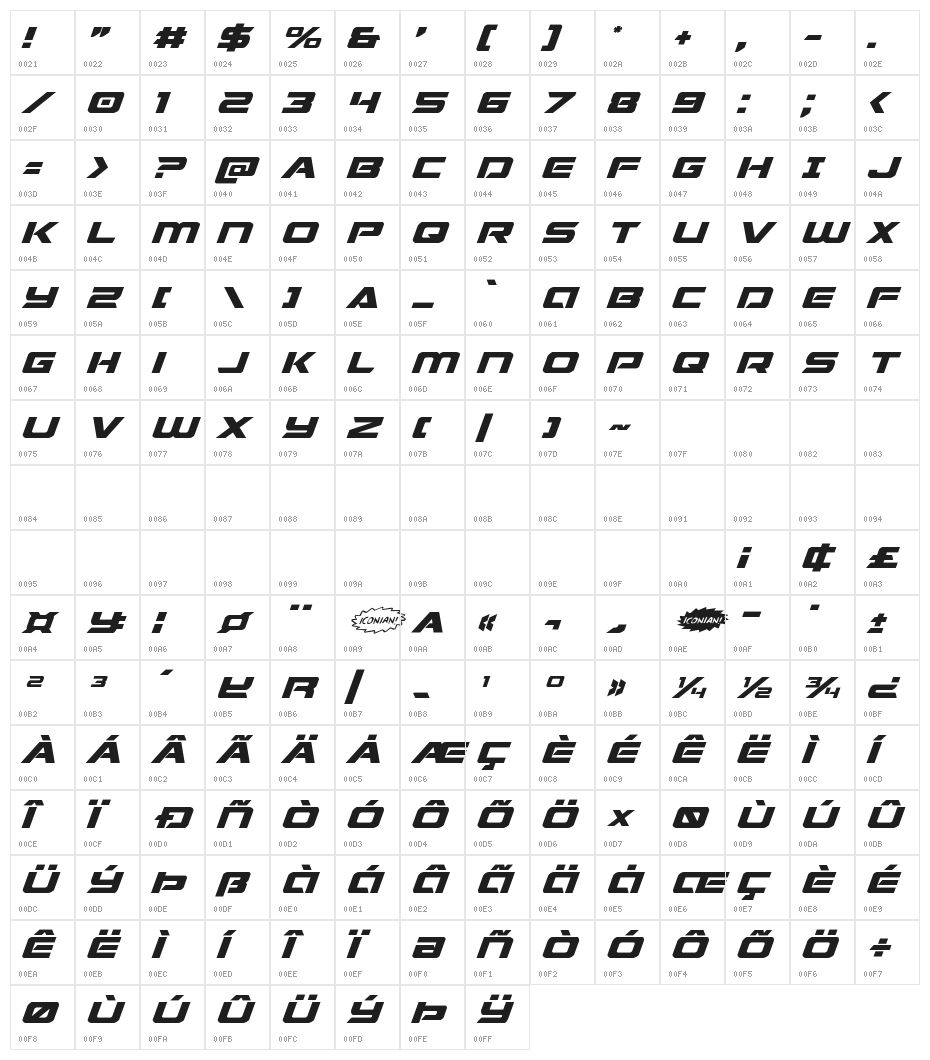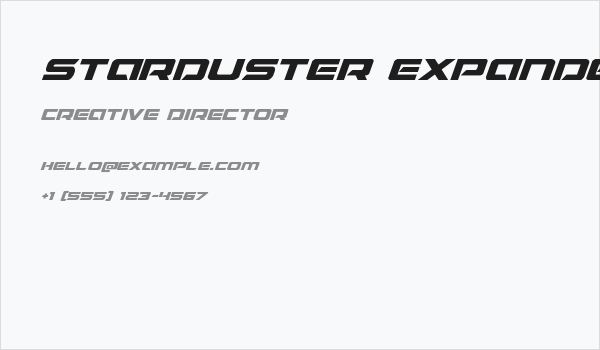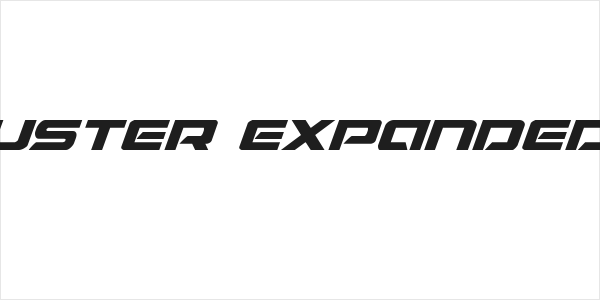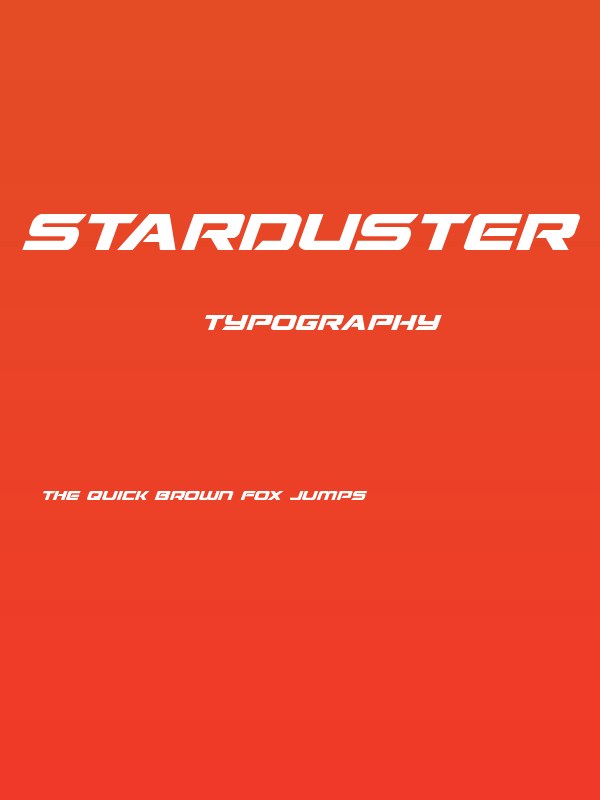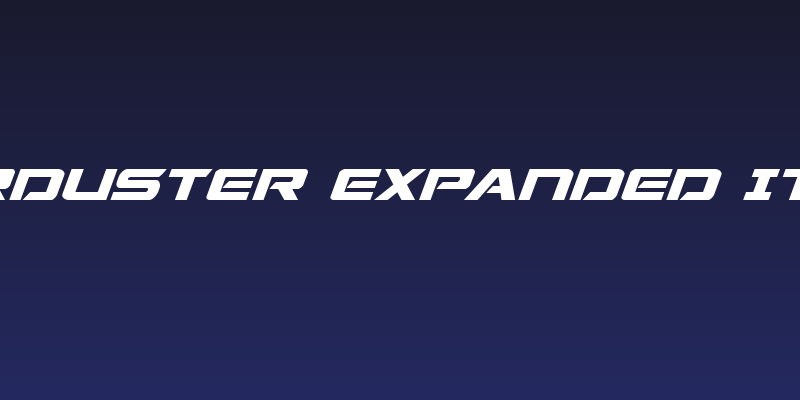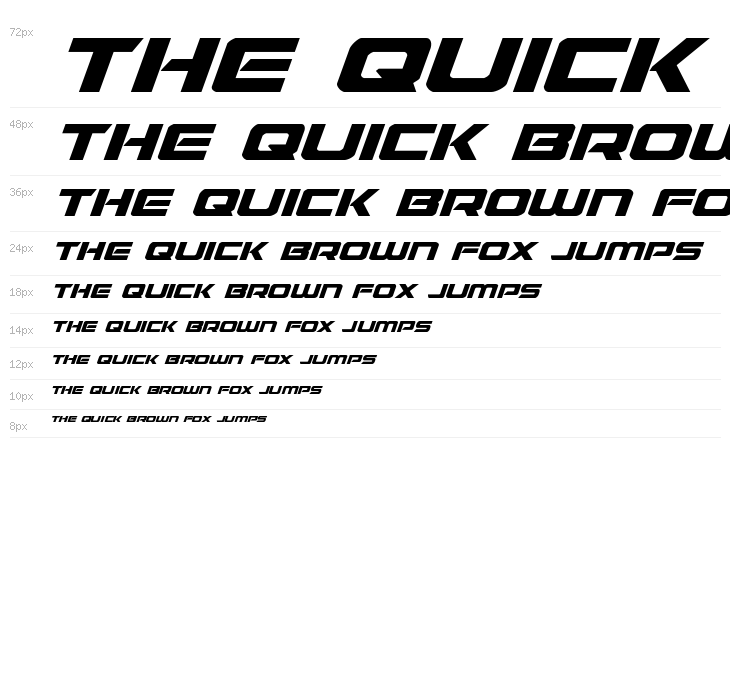
Starduster Expanded Italic Font
Starduster Expanded Italic Description
This font features a bold and dynamic design with an italicized slant, giving it a sense of motion and energy. The characters are expanded, providing a wide and impactful appearance. The geometric shapes and sharp angles contribute to a futuristic and modern aesthetic. The uppercase and lowercase letters maintain a consistent style, with uniform stroke thickness that enhances readability. The numerals and special characters are designed to match the overall style, ensuring cohesion across all elements.
| Proposed Projects | Ideal for projects that require a modern and energetic look, such as technology branding, sports team logos, or sci-fi themed designs. |